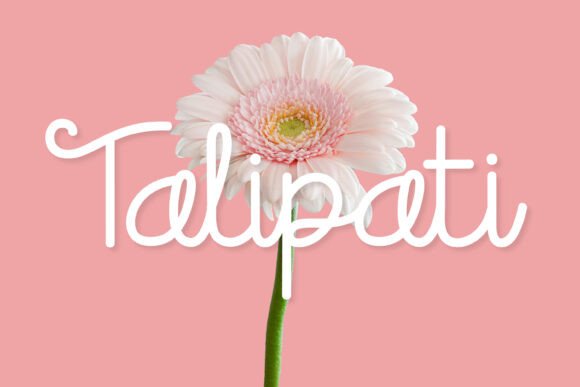
Discover the Charm of Talipati Font: A Playful Script Font with a Sweet, Handwritten Vibe
Are you looking for a font that can add a touch of elegance and playfulness to your designs? Look no further than Talipati Font, a super cute and friendly script font that brings a fresh, handwritten feel to your creative projects. With its smooth curves and charming loops, Talipati Font is perfect for a wide range of design applications, from boutique logos and wedding invitations to Instagram posts and product packaging.
Key Features of Talipati Font
- Playful and Pretty: Talipati Font has just the right mix of playful and pretty, making it perfect for designs that require a touch of whimsy and sophistication.
- Smooth Curves and Charming Loops: The font features smooth curves and charming loops that make everything look effortlessly beautiful.
- Natural Flow: Talipati Font flows naturally, ensuring that your text always looks stylish and easy to read.
- Versatile: The font is perfect for a wide range of design applications, including boutique logos, wedding invitations, Instagram posts, and product packaging.
Design Applications for Talipati Font
With its unique blend of playfulness and elegance, Talipati Font is perfect for a wide range of design applications. Here are some ideas to get you started:
- Boutique Logos: Use Talipati Font to create a custom logo for your boutique or small business. The font’s playful and pretty vibe is perfect for businesses that want to stand out from the crowd.
- Wedding Invitations: Add a touch of elegance and whimsy to your wedding invitations with Talipati Font. The font’s smooth curves and charming loops make it perfect for formal and informal wedding invitations alike.
- Instagram Posts: Use Talipati Font to create eye-catching Instagram posts that showcase your brand’s personality. The font’s playful and pretty vibe is perfect for social media graphics, quotes, and more.
- Product Packaging: Add a touch of elegance and sophistication to your product packaging with Talipati Font. The font’s natural flow and smooth curves make it perfect for labels, tags, and other packaging materials.
Typography Tips for Using Talipati Font
To get the most out of Talipati Font, here are some typography tips to keep in mind:
How Talipati Font Compares to Other Fonts
So, how does Talipati Font compare to other fonts in the market? Here are a few key differences:
- Unique Blend of Playfulness and Elegance: Unlike other script fonts, Talipati Font has a unique blend of playfulness and elegance that makes it perfect for a wide range of design applications.
- Smooth Curves and Charming Loops: Talipati Font’s smooth curves and charming loops set it apart from other fonts that can look stiff or formal.
- Natural Flow: Unlike other fonts that can look forced or artificial, Talipati Font flows naturally, making it easy to read and visually appealing.
In conclusion, Talipati Font is a playful script font with a sweet, handwritten vibe that’s perfect for a wide range of design applications. With its smooth curves and charming loops, Talipati Font brings a fresh, handwritten feel to your designs. Whether you’re working on a boutique logo, wedding invitation, Instagram post, or product packaging, Talipati Font is the perfect choice.